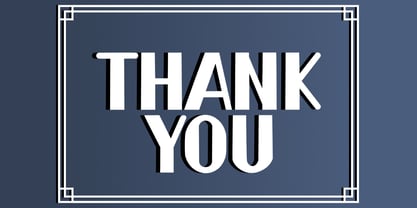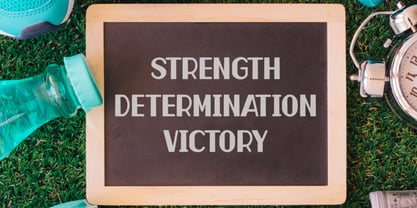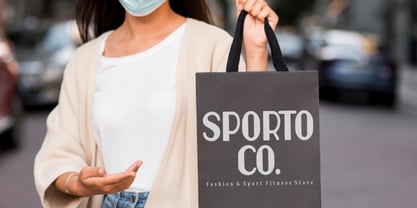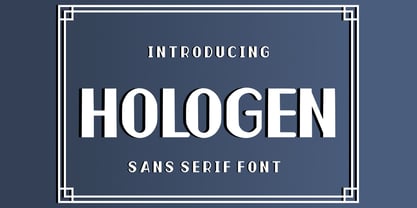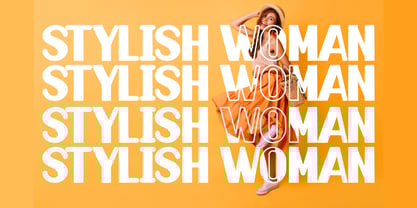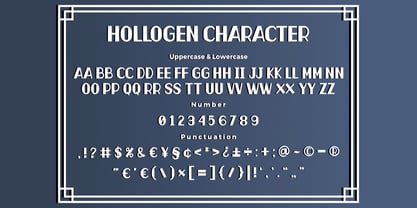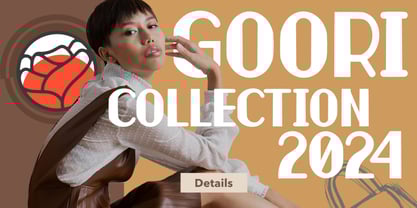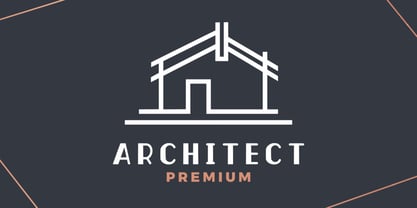
Hologen Logotype
by Bayuktx
The Hologen Logotype Font Family was designed by Bayu Aji Fais Mursid and published by Bayuktx. Hologen Logotype contains 1 styles.
Hologen Sans Serif Font, This font is made with a high premium quality level which you can use as flyers, quotes, posters, banners, packaging, merchandise, logotypes and much more.
Designers: Bayu Aji Fais Mursid
Publisher: Bayuktx
Foundry: Bayuktx